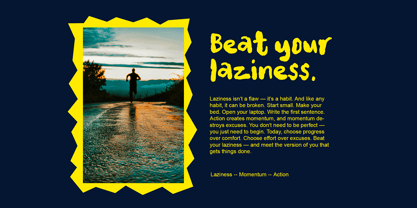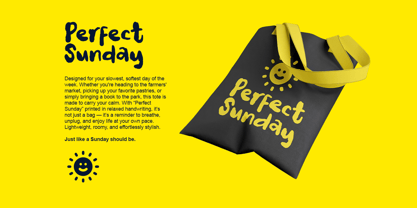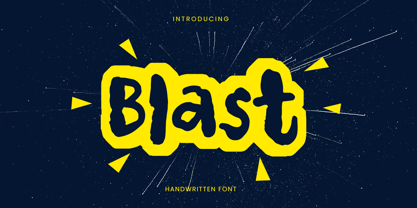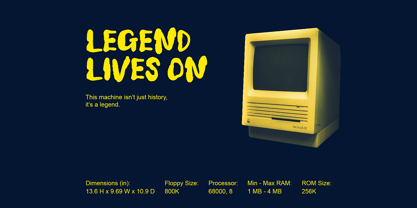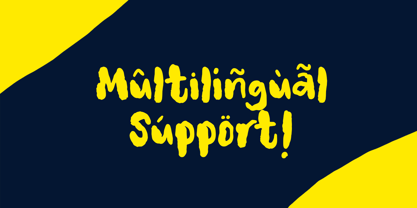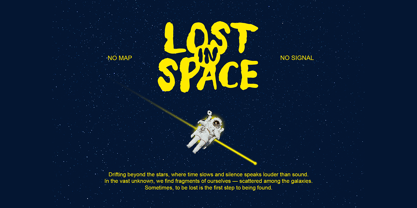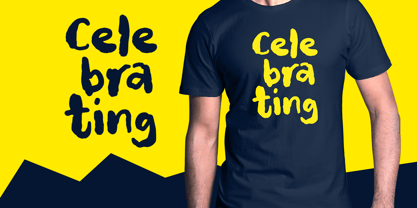
Blast HF
The Blast HF Font Family was designed by Agung Rohmat and published by alphArt. Blast HF contains 1 styles. More about this family
Blast – A Bold, Energetic Handwritten Font Blast is not your average handwritten font — it’s explosive, bold, and full of character. With its thick brush strokes and playful irregularity, Blast brings raw energy to any design. Whether you’re creating loud headlines, playful t-shirts, nostalgic posters, or empowering phone case quotes, this font makes your words impossible to ignore.
Inspired by retro vibes and comic-style bursts, Blast is perfect for: Apparel design, Branding that pops, Motivational quotes, Children’s book titles, Posters, packaging, and beyond
It includes uppercase & lowercase letters, numbers, punctuation, and multilingual support — giving you creative freedom across styles and languages.